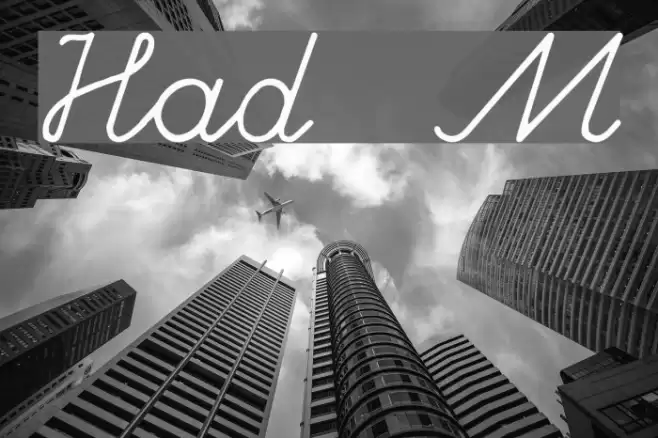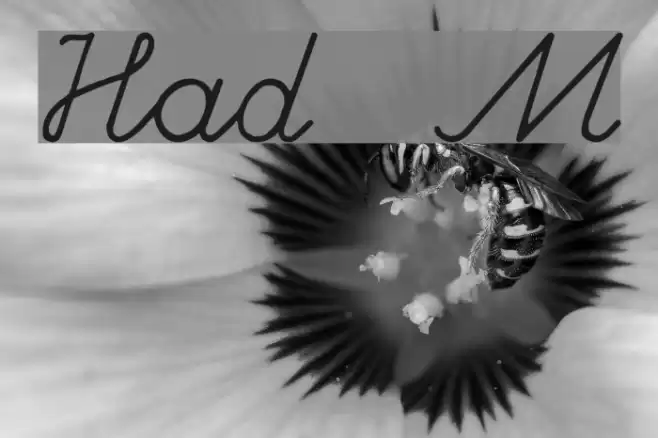
Hand writing Mutlu Font
Hand writing Mutlu Description
This font features a graceful, flowing script style that mimics elegant handwriting. The characters are connected, creating a seamless and fluid appearance. The uppercase letters are slightly larger and more pronounced, while the lowercase letters maintain a consistent, smooth flow. The numerals are clear and legible, matching the overall cursive style. Special characters are integrated seamlessly, maintaining the handwritten aesthetic. The font exudes a personal and sophisticated charm, making it ideal for projects that require a touch of elegance and individuality.
A graceful, flowing script font that mimics elegant handwriting from Handwritten fonts.
- Proposed Projects: Ideal for wedding invitations, personal letters, branding, and greeting cards.
- Character Spacing: Tight
- Overall Style: Elegant, Handwritten
- Use Case: Logos, Invitations, Personal Correspondence